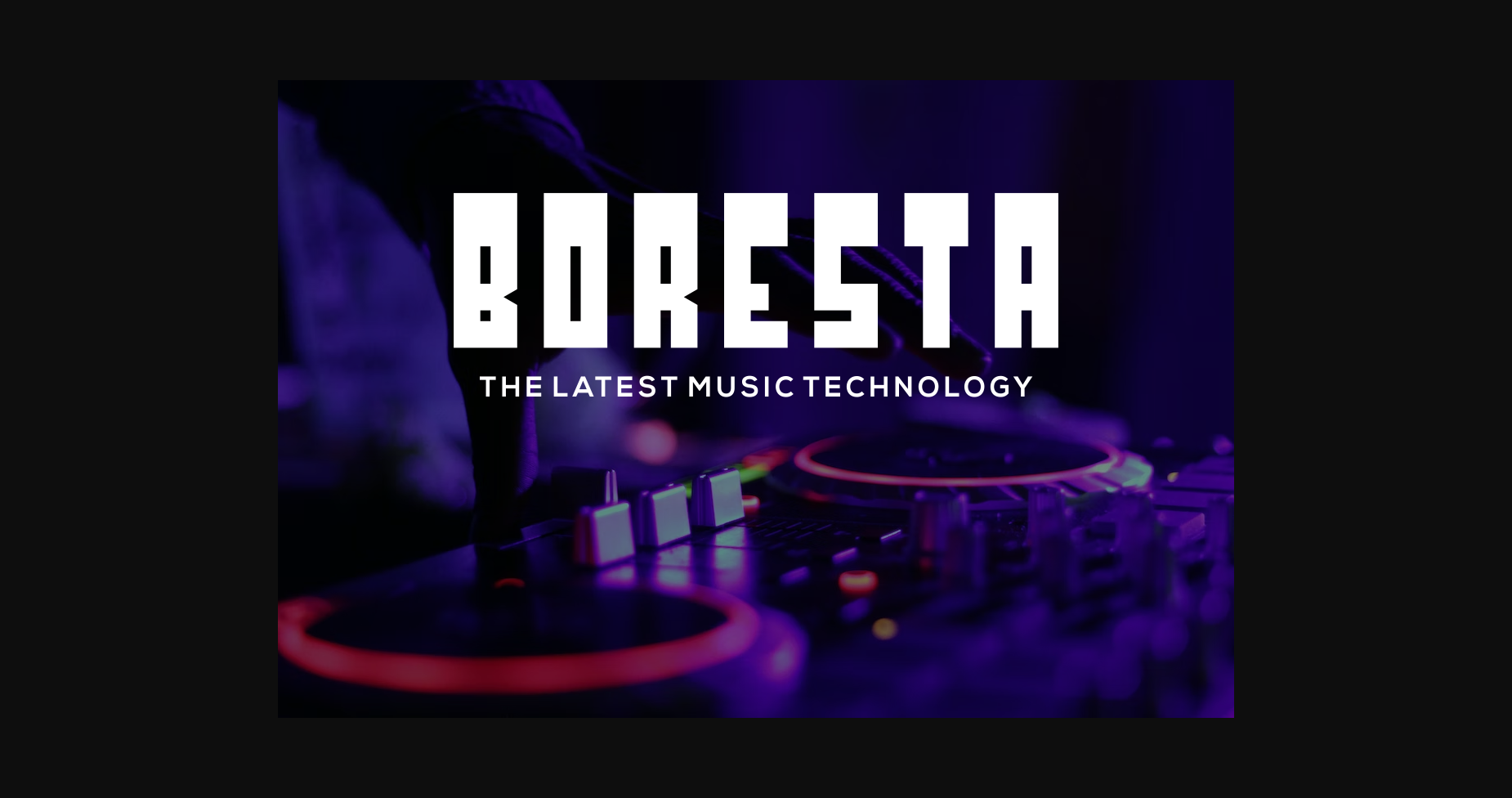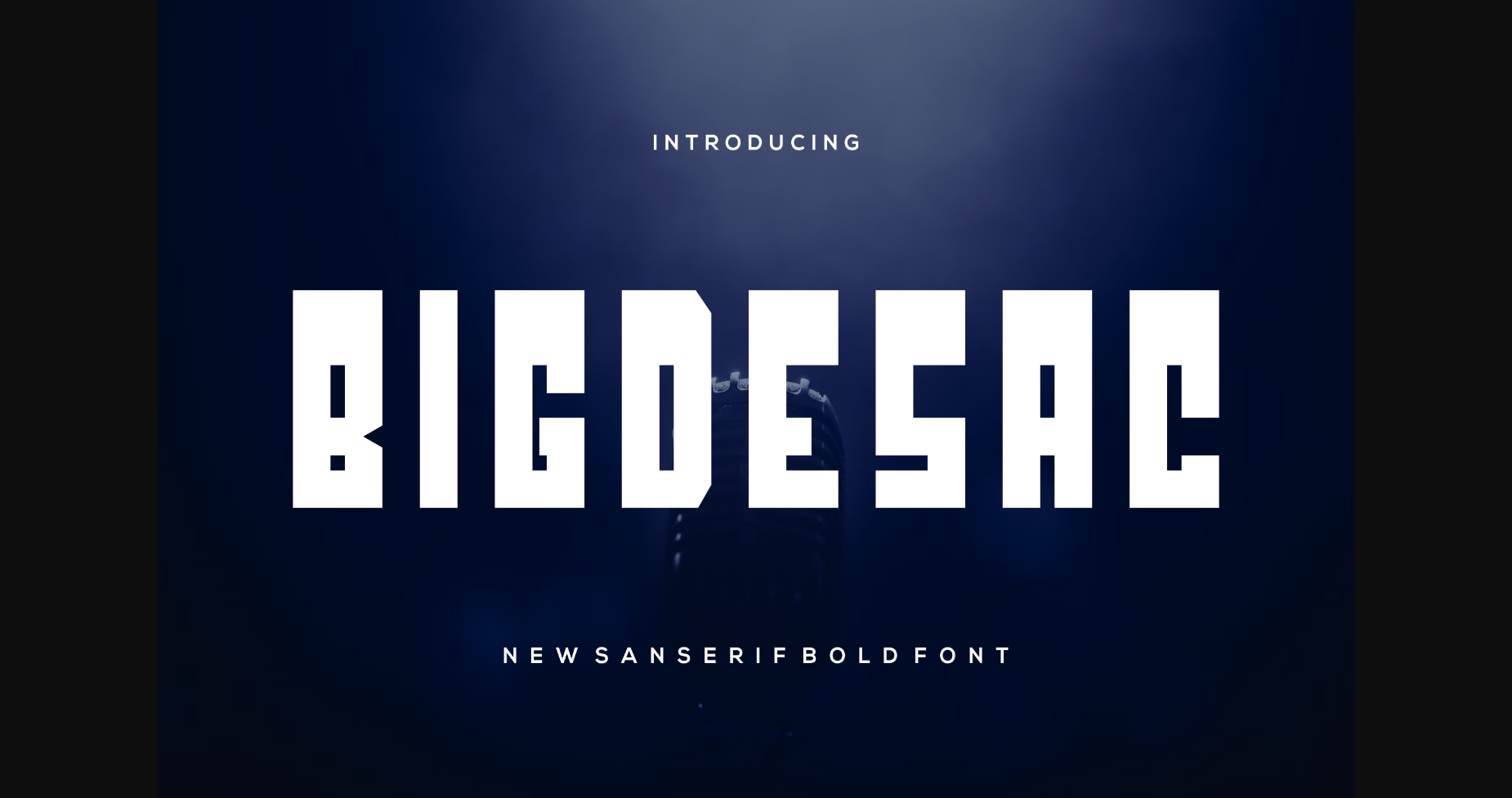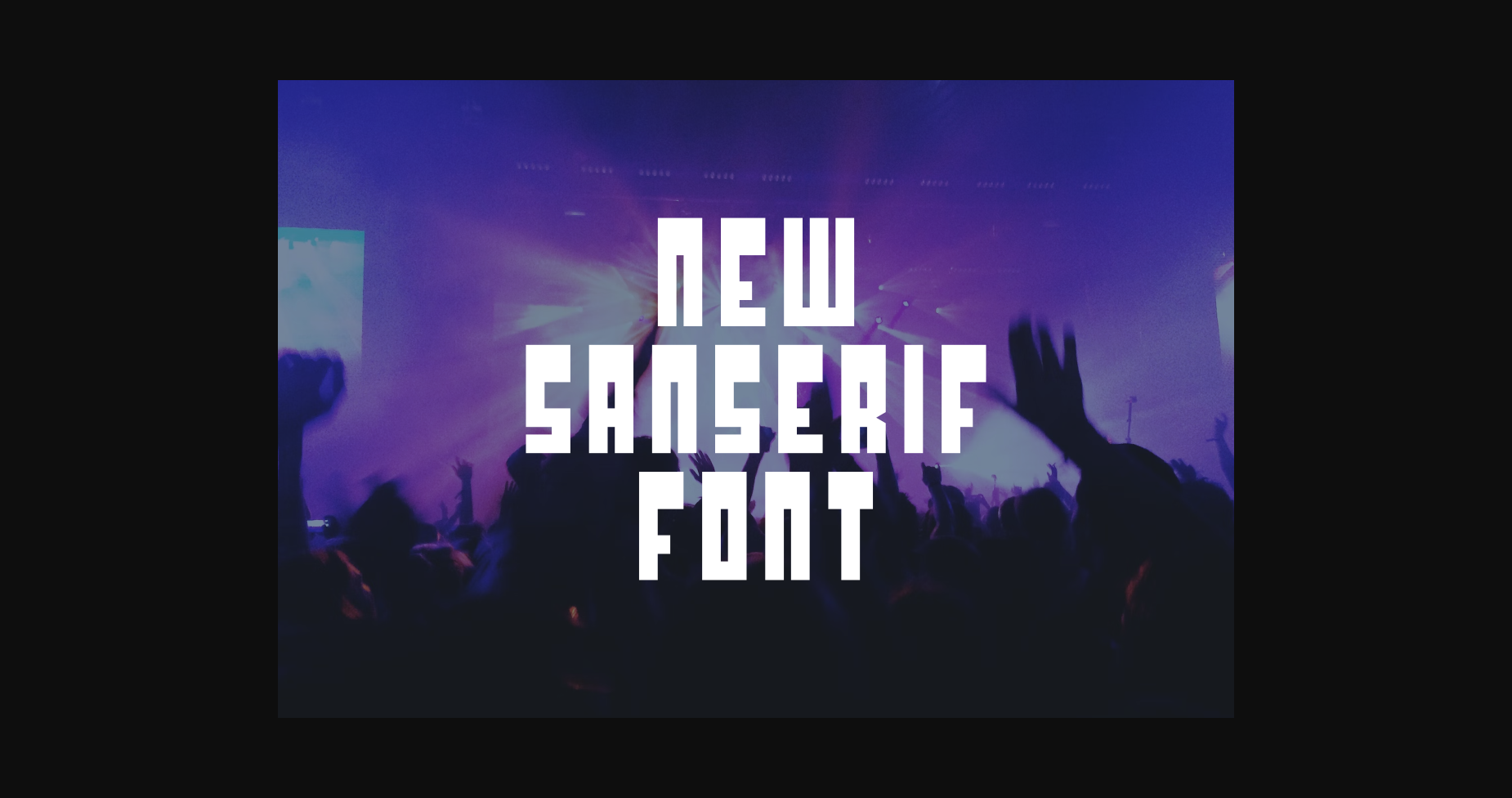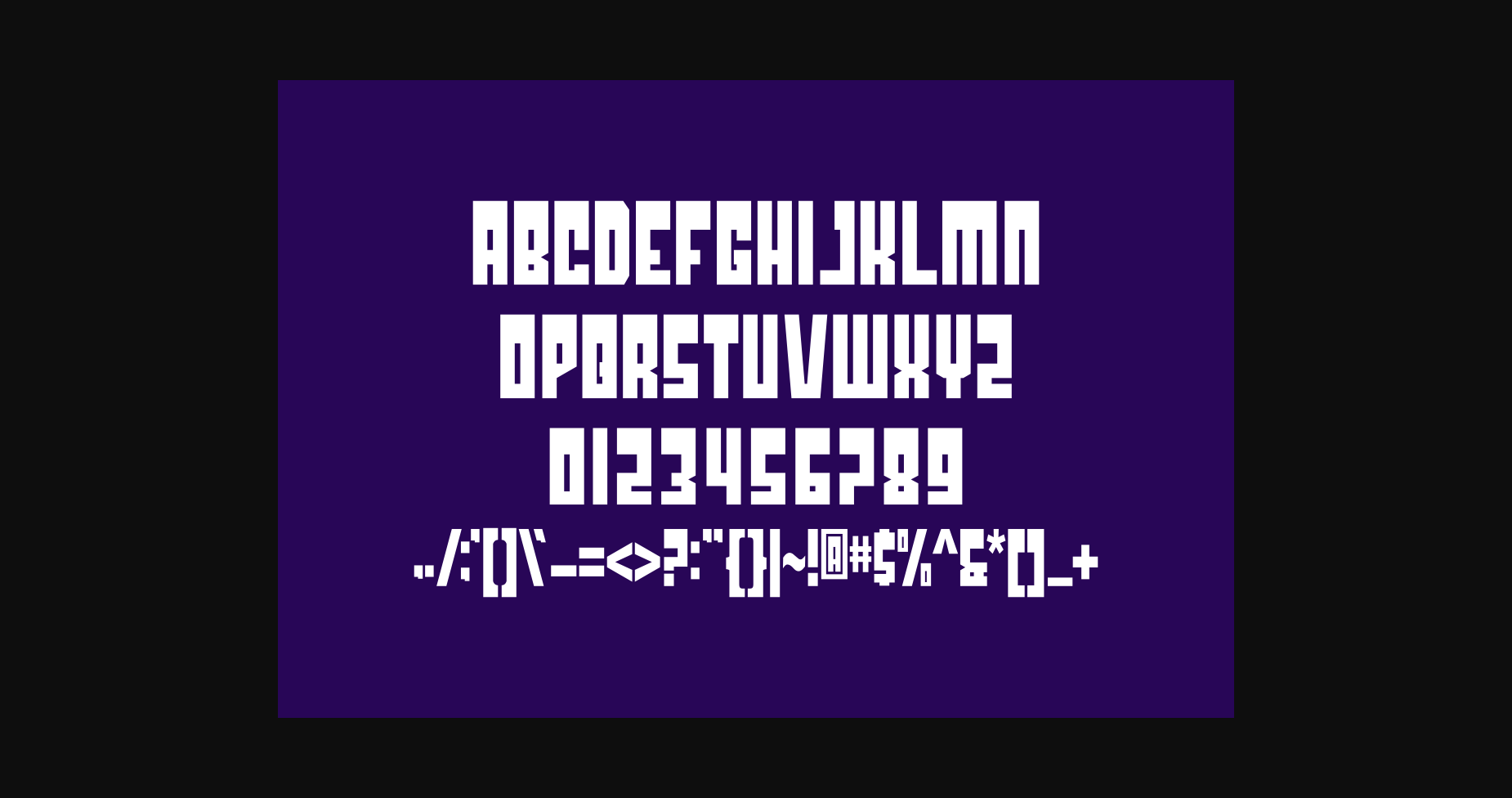
About Bigdesac Font
This sans-serif font is sleek and contemporary, with clean lines and a minimalist aesthetic. Its simple, unadorned letterforms make it easy to read at any size, while its versatility makes it ideal for a wide range of design applications, from branding to web design.